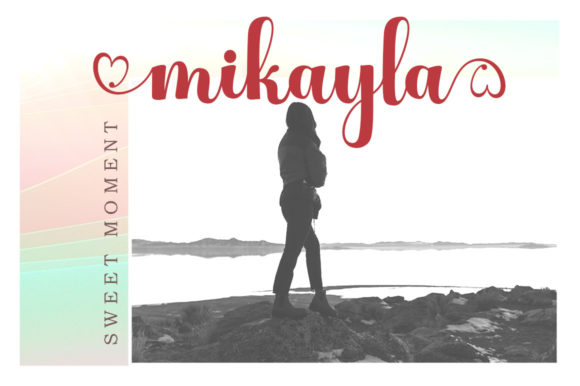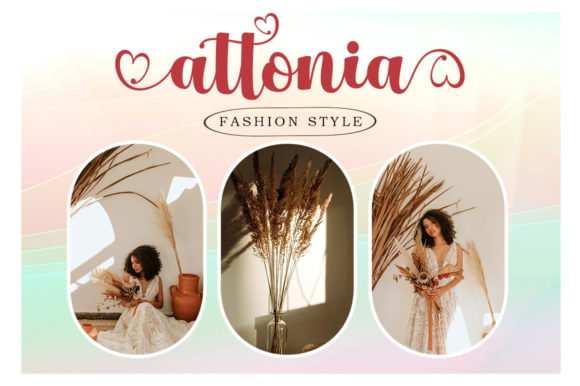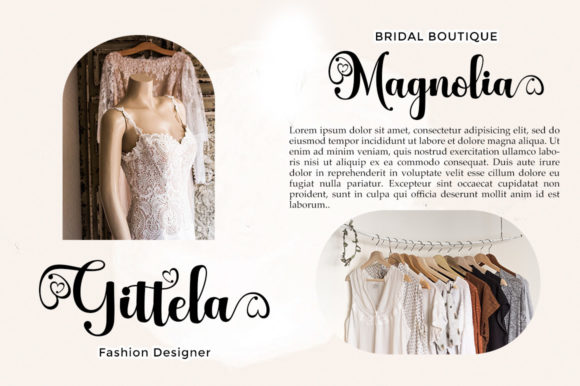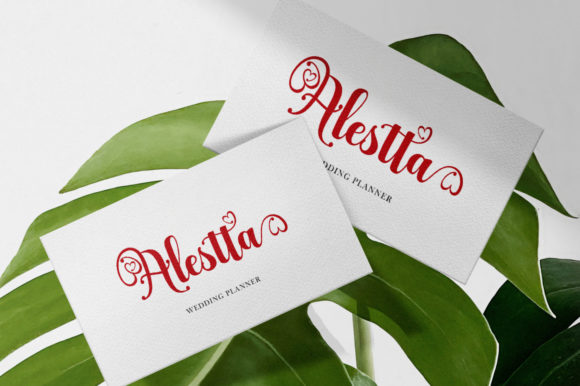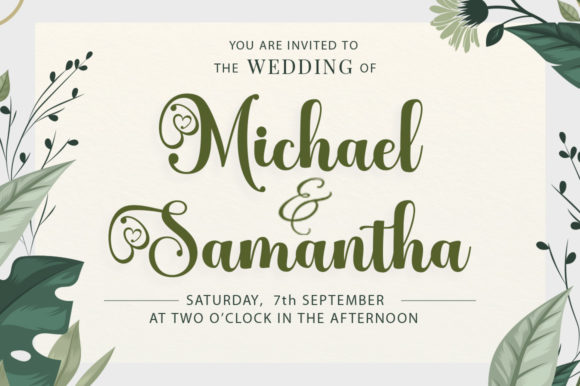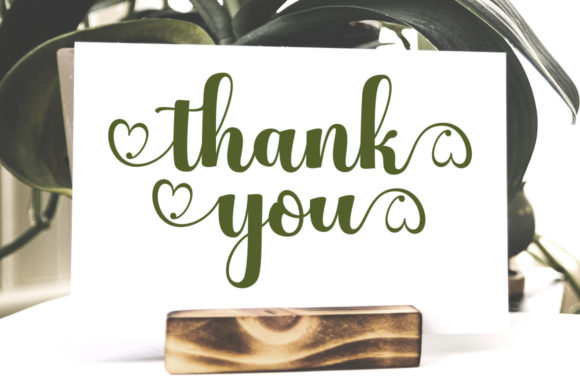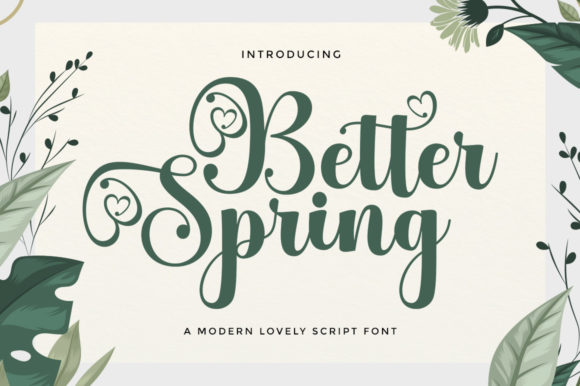
The Elusive Perfect Font: My Journey with Better Spring
Ah, the quest for the perfect font. We’ve all been there – stuck in the midst of a design project, scrolling through font libraries, and yet, nothing seems quite right. I recall a particularly frustrating experience while working on a wedding invitation design. My client wanted something elegant, yet playful; classic, yet modern. I tried font after font, but nothing seemed to strike the right balance. That was until I stumbled upon Better Spring.
An Honest Review of Better Spring
Better Spring is a well-balanced and subtle handwritten font that has become a staple in my design toolkit. Here’s what I love about it:
• ✨ Elegant and classy vibe that’s perfect for high-end designs
• ✅ Well-balanced and subtle, making it easy to read and visually appealing
• 💡 PUA encoded, giving me access to a wide range of glyphs and swashes
• 🎨 Highly versatile, suitable for a variety of design projects, from wedding invitations to branding materials
While Better Spring is an excellent font, it’s not without its quirks:
• 🤔 Limited availability of certain characters, which can be a minor inconvenience
• ⚠️ May not be the best choice for body text, as it’s more suited for headings and titles
The Story Behind Better Spring
Better Spring was crafted with great care by a talented type designer who aimed to create a font that would add elegance and class to any design project. The designer’s inspiration came from the beauty of handwritten scripts and the need for a versatile, modern font that could be used in a variety of contexts. Although the designer prefers to remain anonymous, their work on Better Spring has certainly made a significant impact on the design community.
What makes Better Spring unique? Better Spring is unique due to its well-balanced and subtle design, making it perfect for adding elegance and class to any design project.
Is Better Spring suitable for body text? While Better Spring is an excellent font, it’s more suited for headings and titles. For body text, a more traditional font may be more suitable.